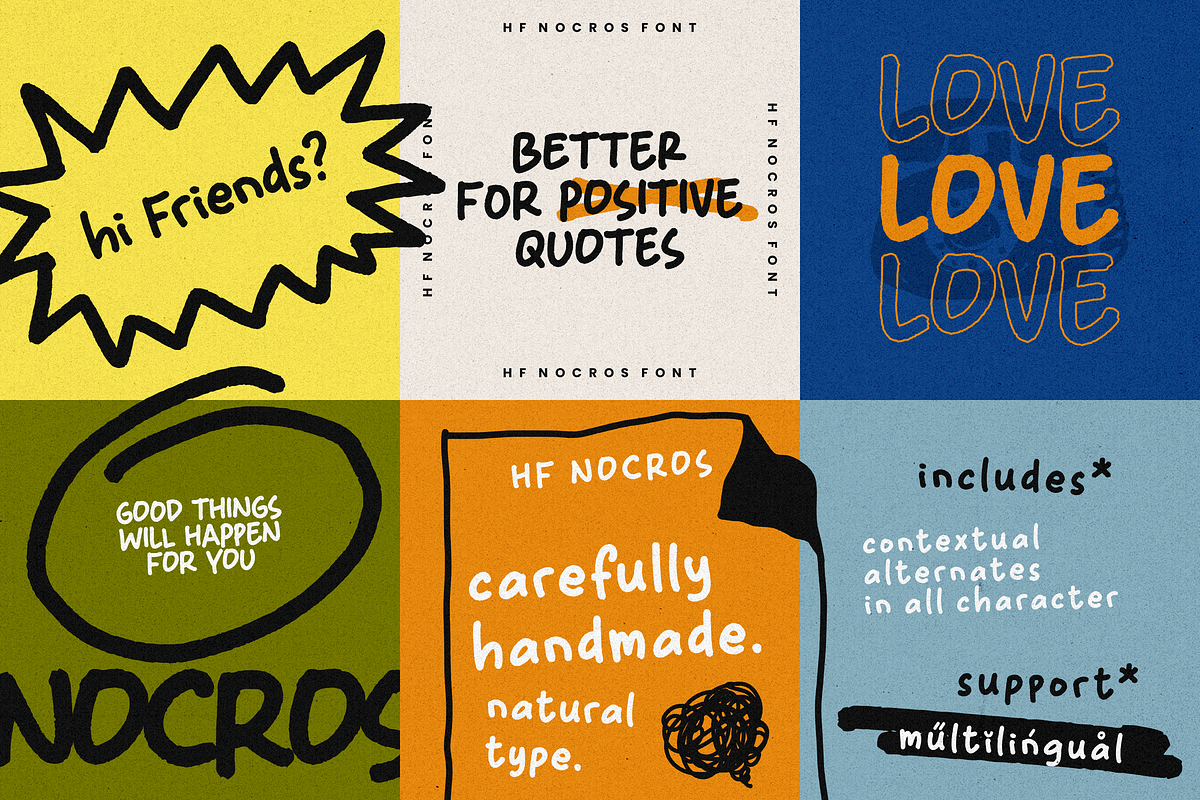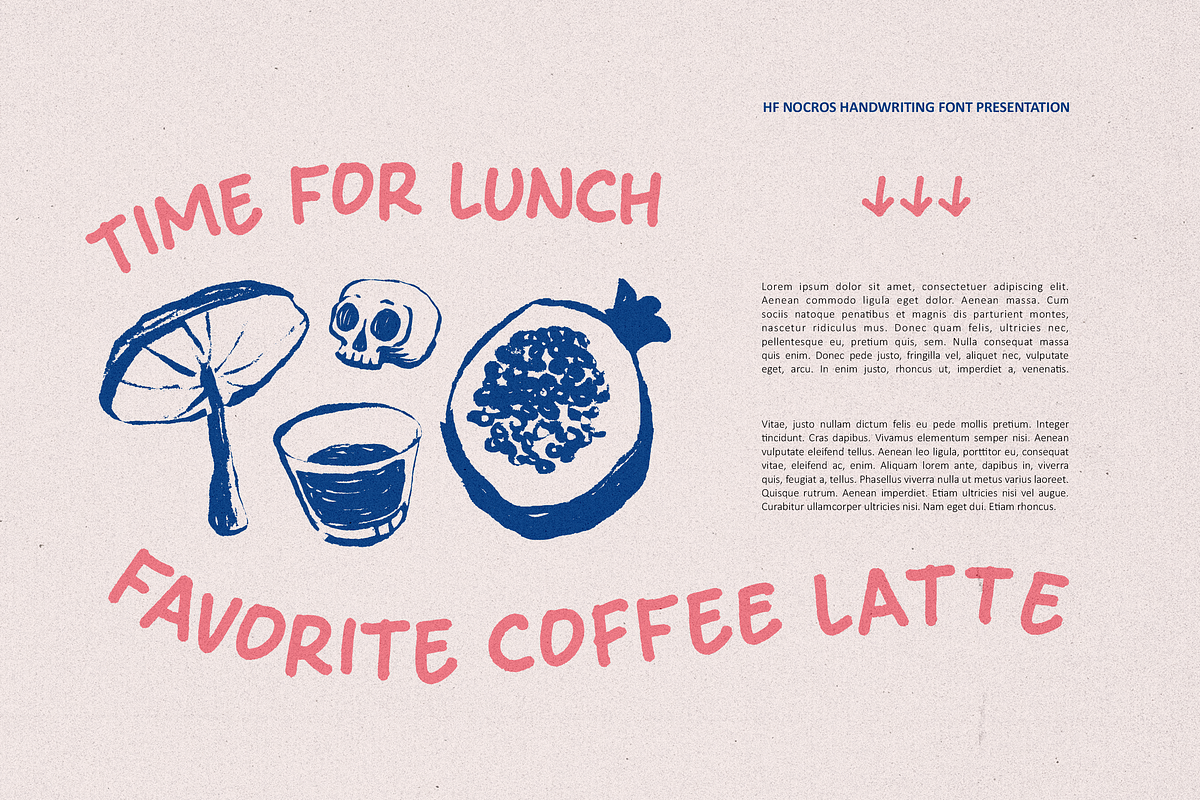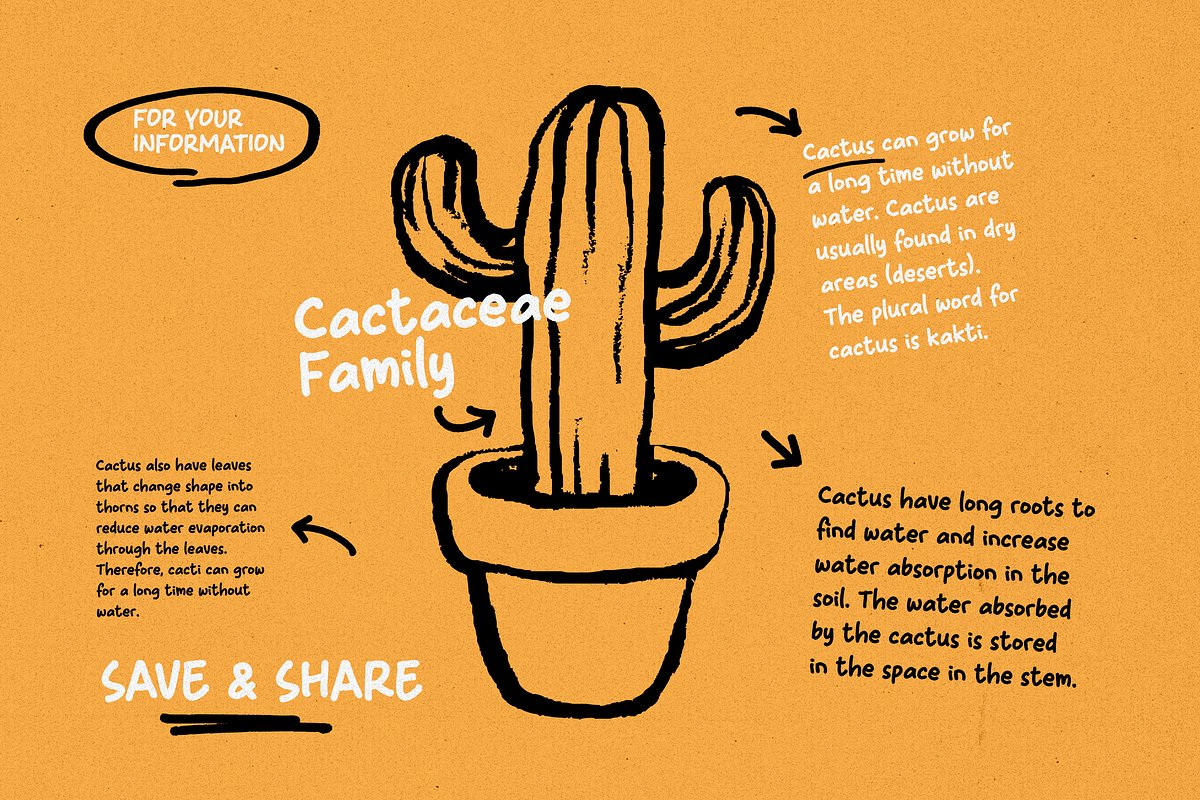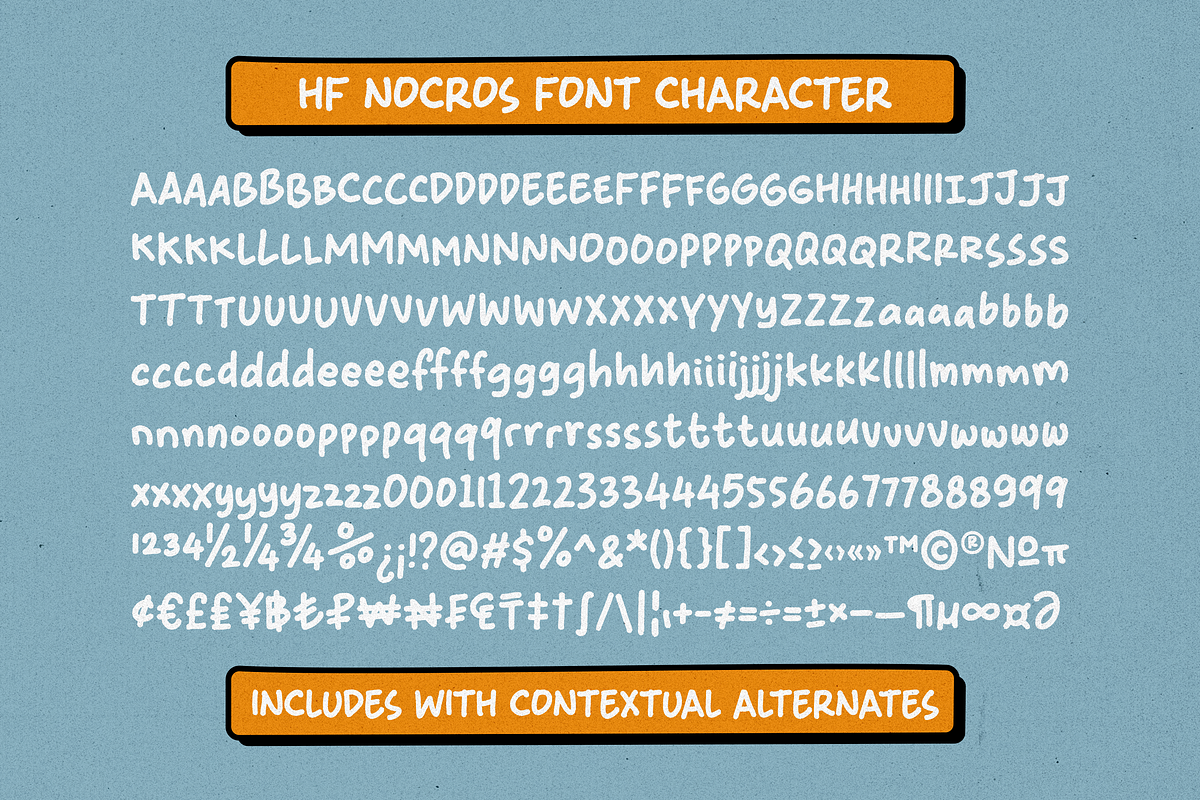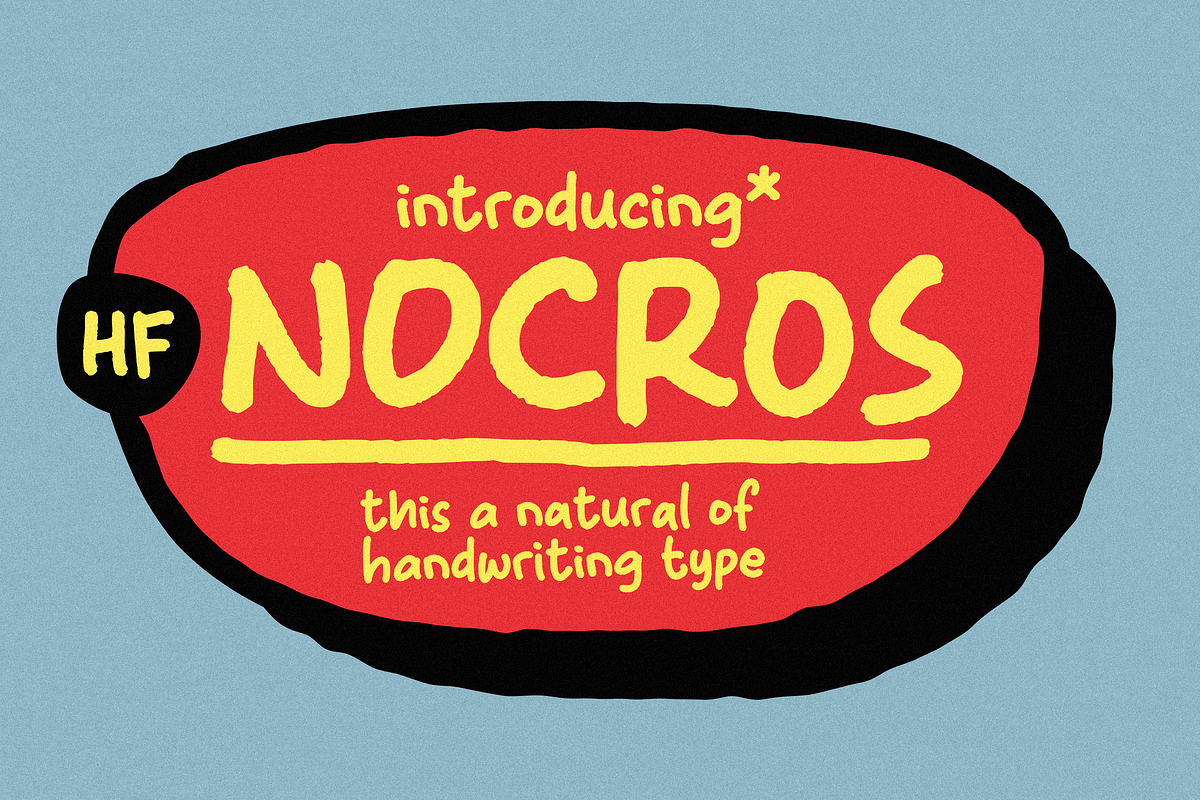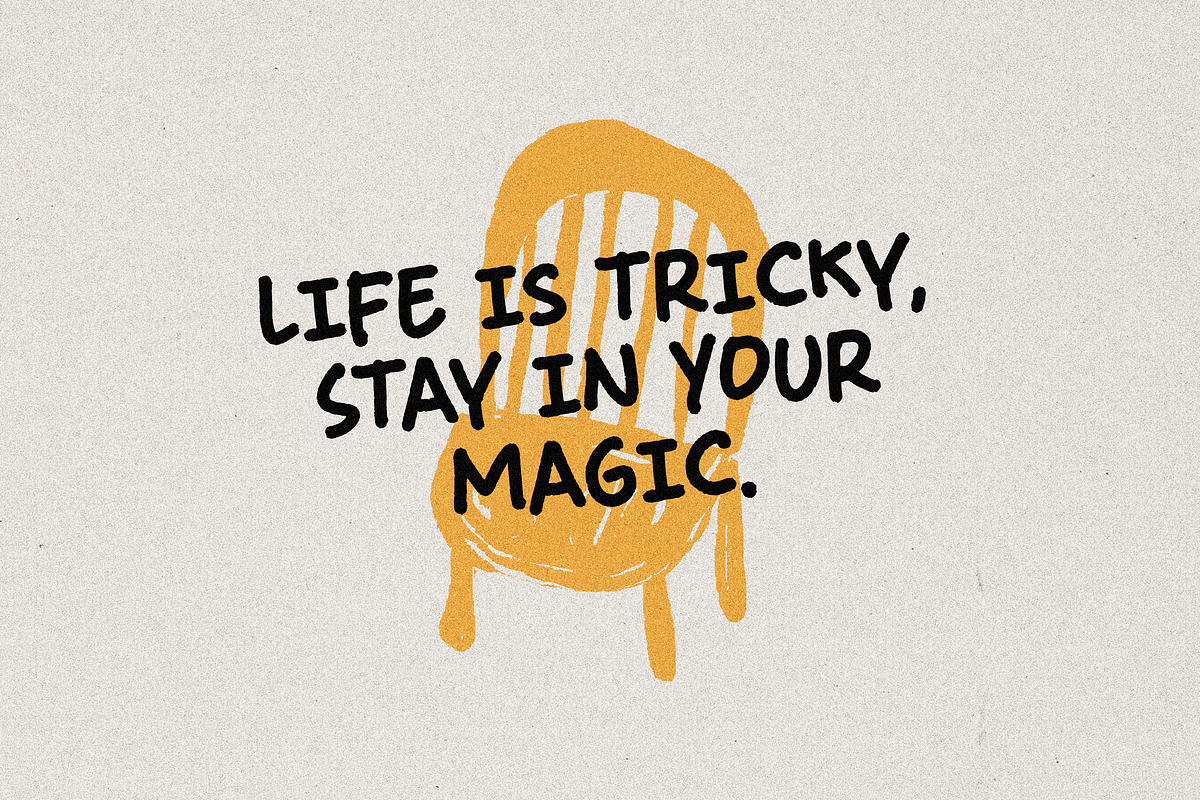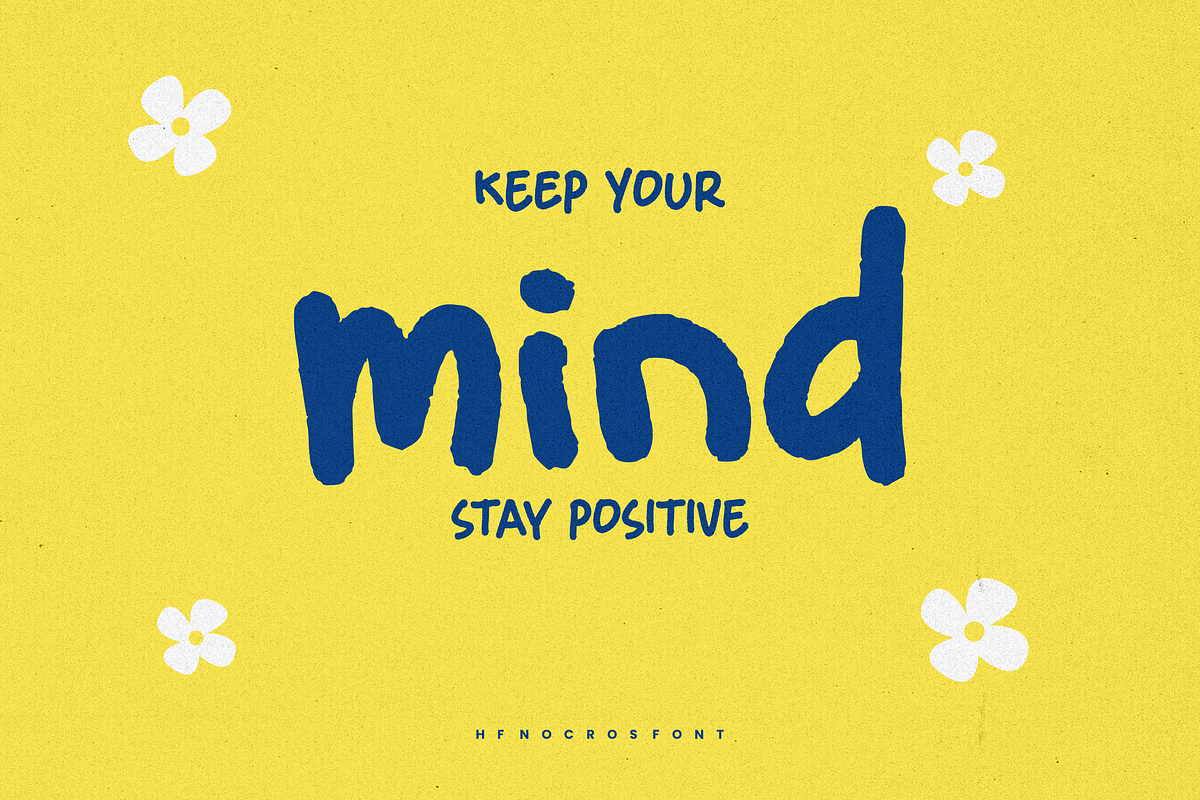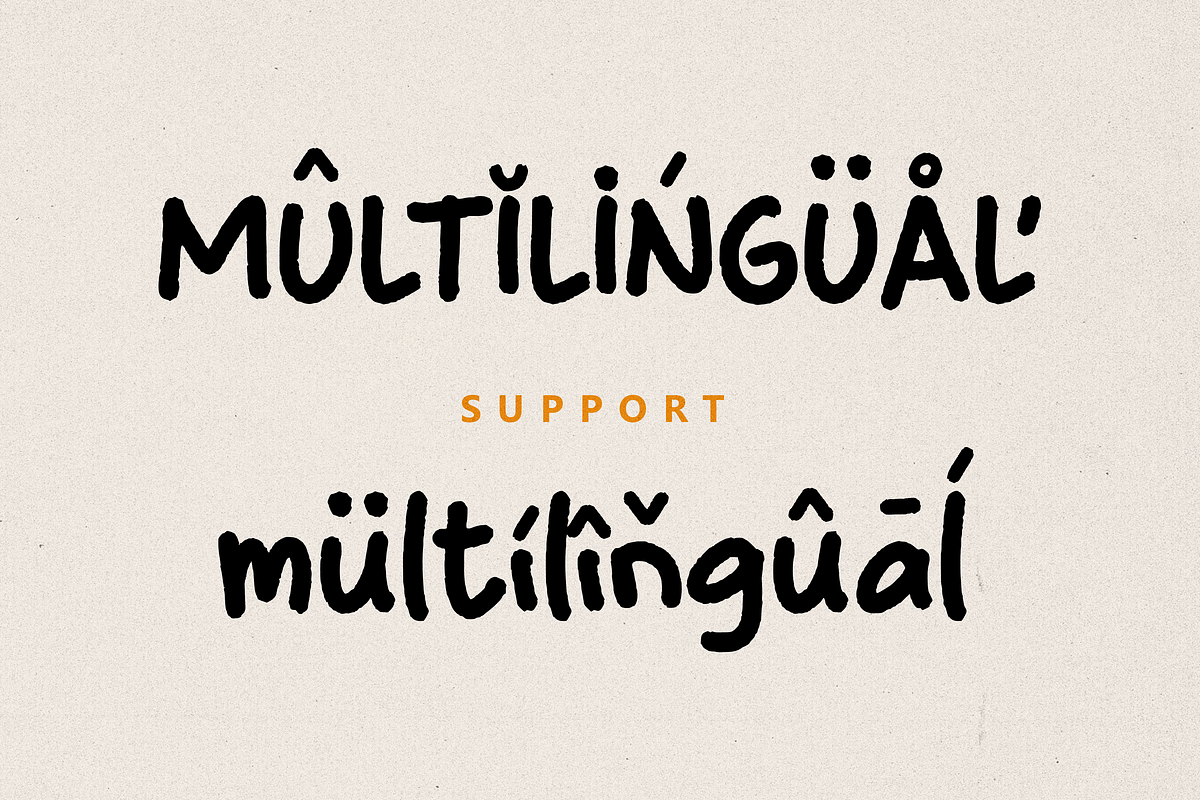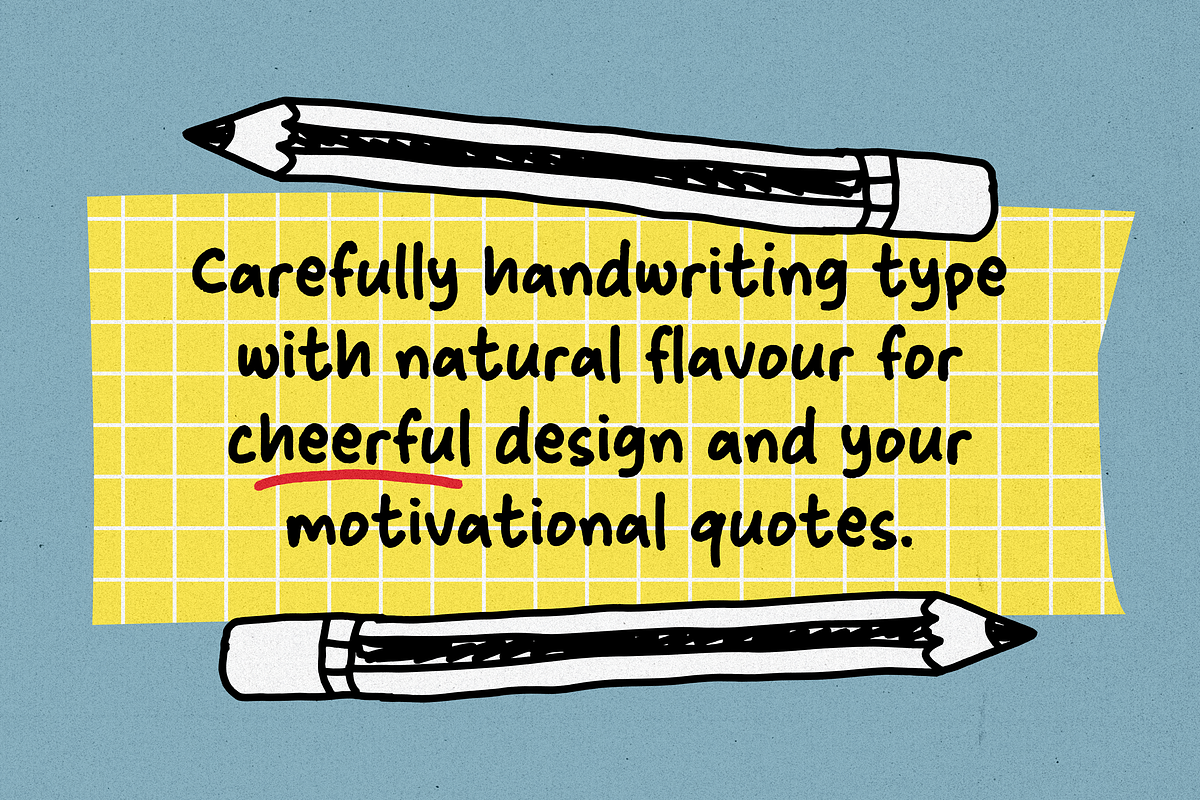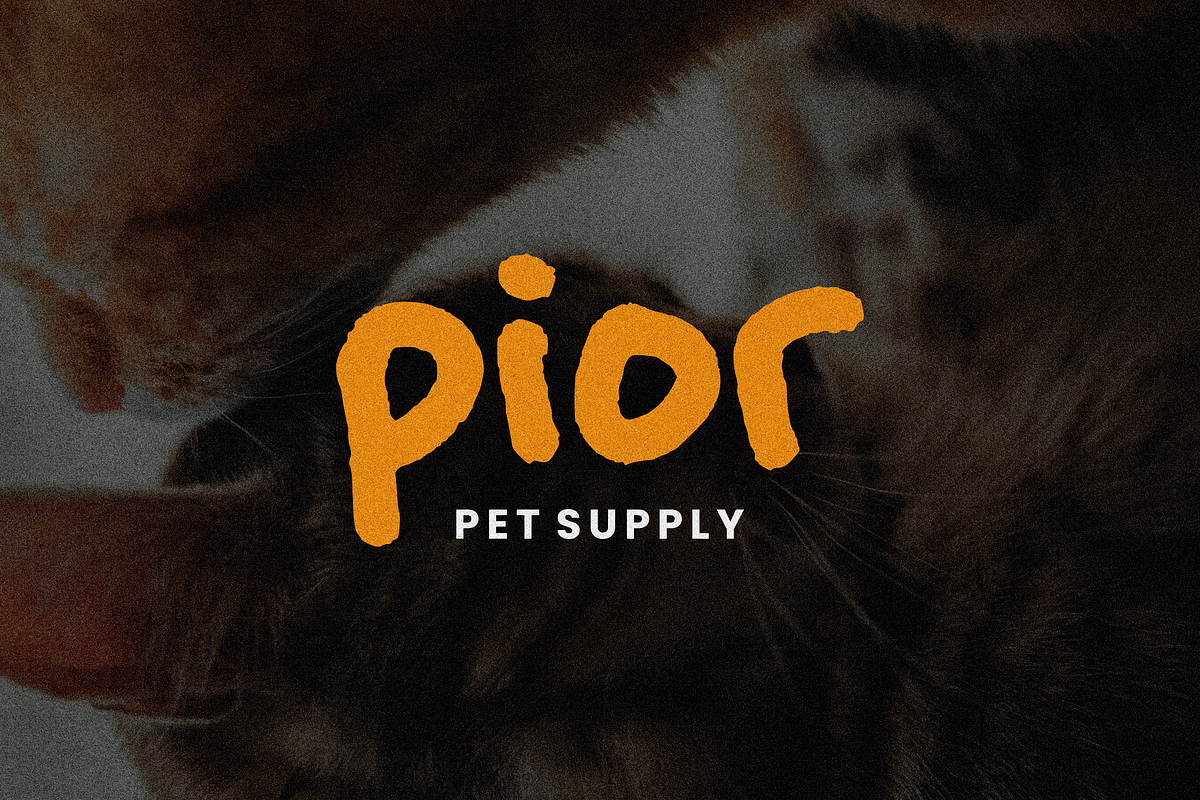
HF Nocros Handwriting
HF Nocros is a natural children's font created for quotes, cheerful designs, posters, etc. Done with markers to get the character in each character, it feels natural when used for design. This font supports many languages and is equipped with contextual alternates which provide alternative options for each letter and number, so it can make your design feel more natural.